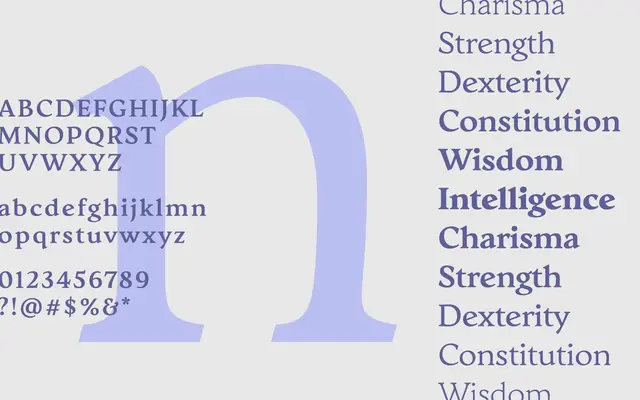
Avona Serif
Arcane Type Foundry · Alanna Munro · 2021
A calligraphy-influenced humanist serif by Alanna Munro, drawing on Carolingian round forms to produce a warm, characterful text face.
Designed by Alanna Munro and published in 2021, this serif takes Carolingian calligraphy as its starting point, producing wide, round letterforms with expressive details that sit outside the usual neutral text-serif conventions. Six static weights run from Light to Black, complemented by a variable font with a continuous weight axis. OpenType features include oldstyle figures, tabular numbers, fractions, superscripts and subscripts, with Latin Extended coverage suitable for a broad range of Western European and Vietnamese languages.
Described explicitly as humanist in influence, with round, wide forms drawn from Carolingian calligraphy. The calligraphic roots and warm, expressive details place it firmly in the humanist serif tradition.